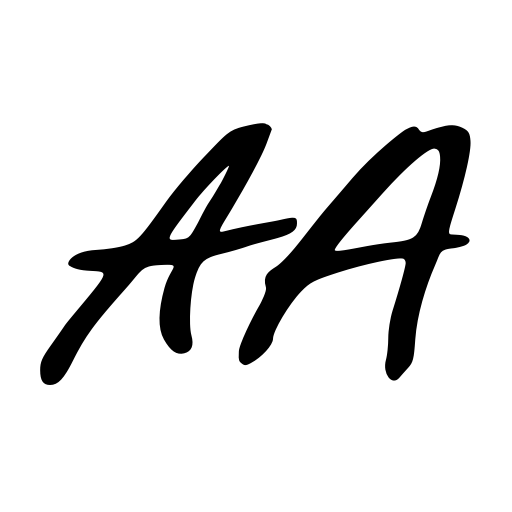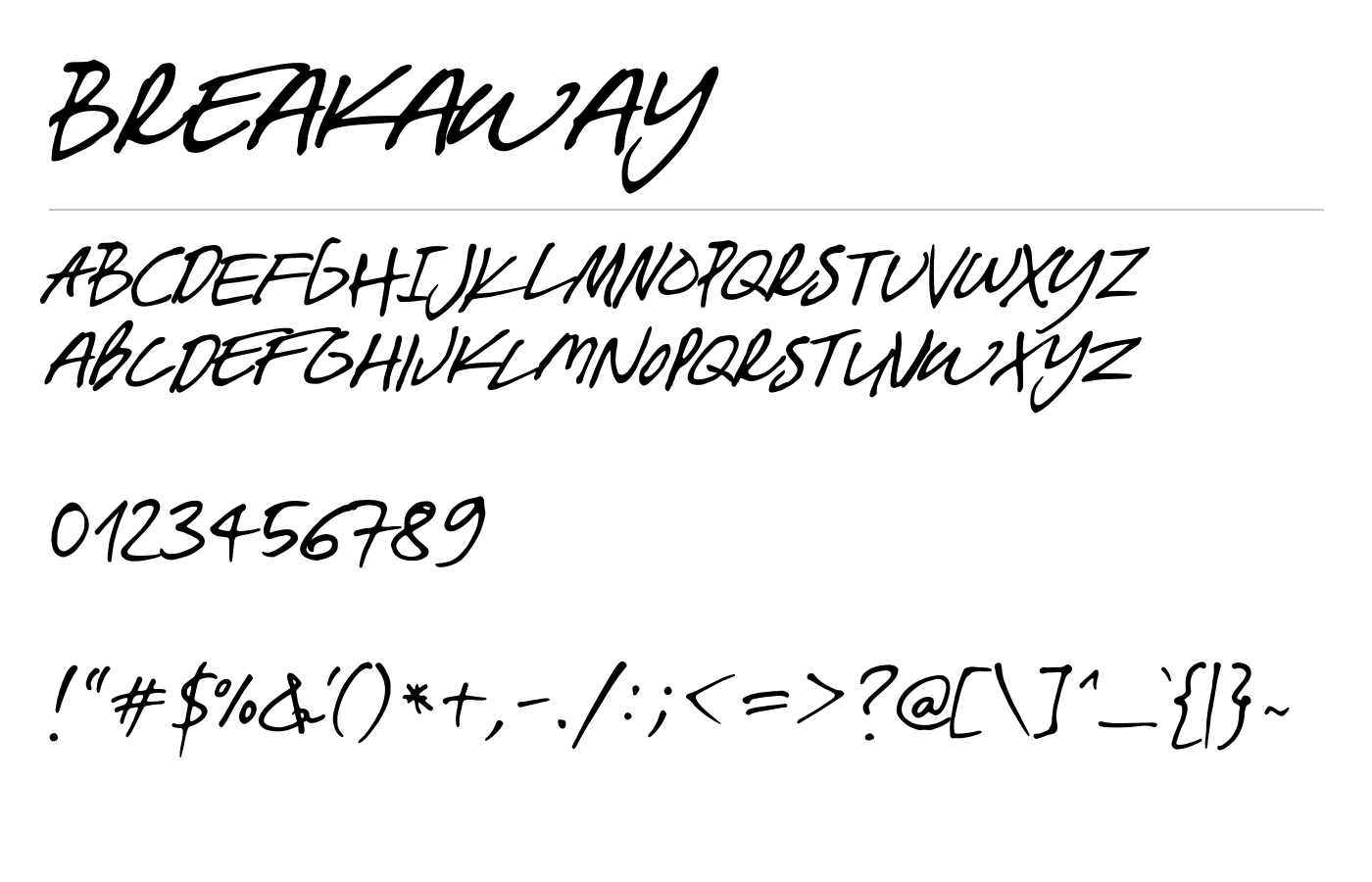
Breakaway Font is a lively and expressive script typeface characterized by its dynamic, handwritten style with a natural, flowing rhythm. Its slightly irregular strokes and casual letterforms give it an energetic, personal feel, making it ideal for creative branding, invitations, and informal designs seeking a friendly and spontaneous touch. This font works well where a sense of individuality and warmth is desired, adding personality to logos, posters, and lifestyle-oriented projects.
Breakaway Font